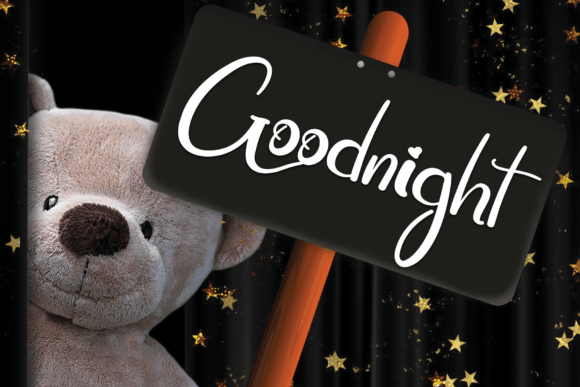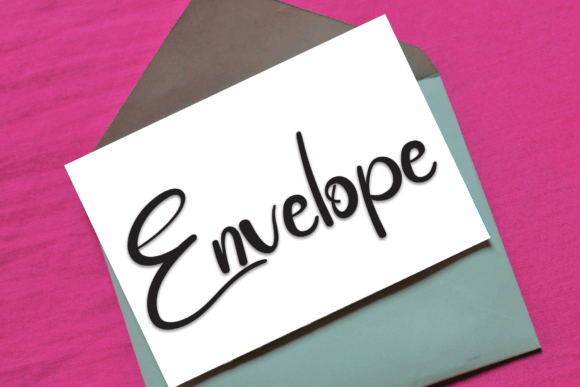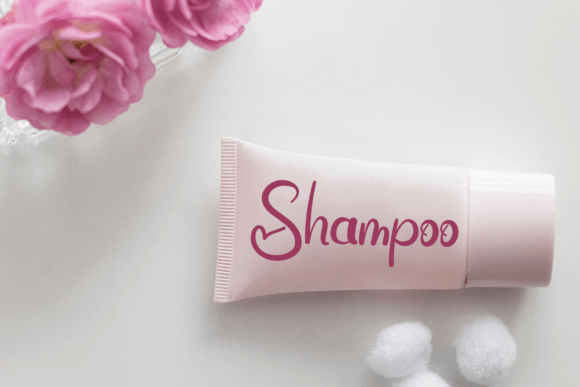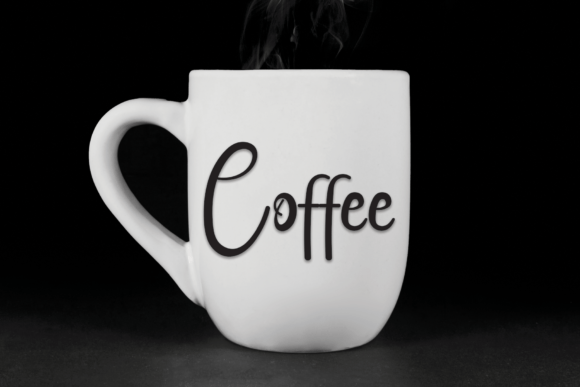
The Baby Ghost Font: A Friendly Companion for Your Creative Projects
Have you ever been in the middle of a design project, and suddenly, the font you’ve been using just doesn’t cut it? You’re not alone! I recall working on a greeting card project for a friend’s birthday, and my go-to font just wasn’t conveying the warmth and playfulness I wanted. That’s when I stumbled upon the Baby Ghost font, and it quickly became my new best friend. In this article, we’ll dive into the world of Baby Ghost, exploring its features, uses, and what makes it a fantastic addition to your font library.
A Personal Review: What I Love About Baby Ghost
The Baby Ghost font has won me over with its simplicity and friendliness. Here are some aspects that I absolutely adore:
- ✨ Simple yet expressive: Baby Ghost strikes a perfect balance between being straightforward and having enough character to make your designs pop.
- ✅ Versatile: Whether you’re working on crafts, digital designs, presentations, or greeting cards, this font adapts beautifully to various contexts.
- 💕 Emotional connection: The handwritten nature of Baby Ghost creates an instant emotional connection with your audience, making your designs feel more approachable and personal.
No font is perfect, and Baby Ghost is no exception. Here are a few quirks to keep in mind:
- 🤔 Legibility at small sizes: While Baby Ghost is generally clear, it can become a bit tricky to read at very small sizes. It’s best used at larger sizes for optimal readability.
- ⚠️ Limited formal use: Given its friendly and informal nature, Baby Ghost might not be the best choice for very formal projects or professional documents.
Exploring Alternatives: Similar Fonts to Baby Ghost
If you’re looking for more options or want to experiment with different styles, here are a few fonts similar to Baby Ghost:
- Lobster: A more elegant, cursive option that’s perfect for headings and titles where you want to make a statement.
- Pacifico: Offers a bit more flair with its italicized style, great for designs needing a touch of sophistication.
- Great Vibes: A script font with a friendly feel, ideal for projects requiring a bit more movement and energy.
- Rock Salt: A charming, handwritten font that’s great for adding a personal touch to your designs.
The Story Behind Baby Ghost
Baby Ghost was designed with the intention of creating a font that feels both modern and nostalgic. The designer aimed to capture the essence of handwritten notes and letters, making it perfect for personal and creative projects. While the exact backstory might be fictional, the result is undeniably charming and versatile.
| Is Baby Ghost suitable for professional documents? | While Baby Ghost is incredibly versatile, its friendly and informal nature makes it better suited for creative projects and personal use rather than very formal professional documents. |
| Does Baby Ghost support OpenType features? | Yes, Baby Ghost supports OpenType features, including glyphs and stylistic alternates, allowing for a high degree of customization in your designs. |
| Is Baby Ghost difficult to read at small sizes? | Like many handwritten fonts, Baby Ghost can become a bit challenging to read at very small sizes. It’s recommended to use it at larger sizes for optimal readability. |